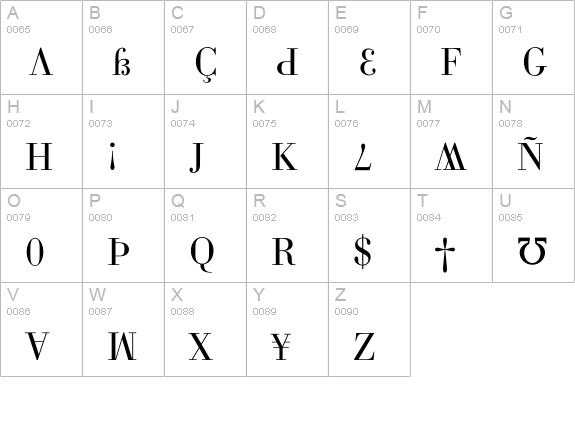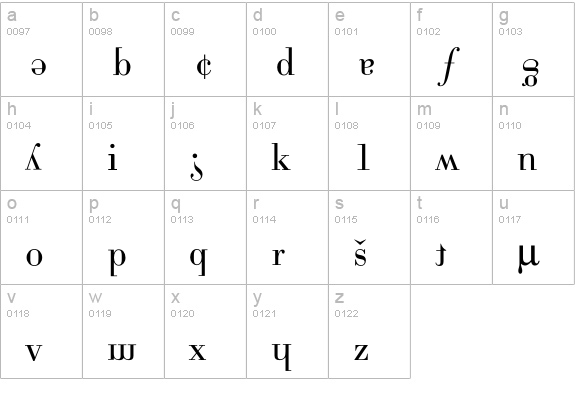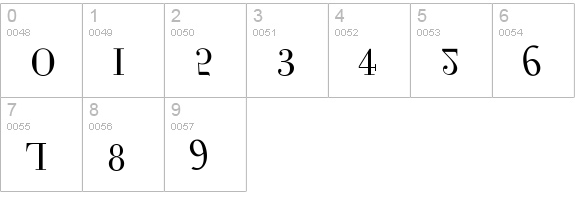
Doubletake Font Details
Doubletake font is a modern and stylish typeface that exudes elegance and sophistication. With its clean lines and balanced proportions, Doubletake font is perfect for a wide range of design projects, from branding to editorial design. The versatile nature of this font allows it to be used in both headlines and body text, making it a valuable addition to any designer's toolkit. What sets Doubletake font apart is its unique blend of classic and contemporary design elements, giving it a timeless appeal that can elevate any project. Whether you're creating a sleek corporate identity or a chic fashion publication, Doubletake font is sure to make a statement. The best part? Doubletake font is available for free download at FontsMarket.com, allowing designers to access this high-quality typeface without breaking the bank. Don't miss out on the opportunity to add Doubletake font to your collection and take your designs to the next level.